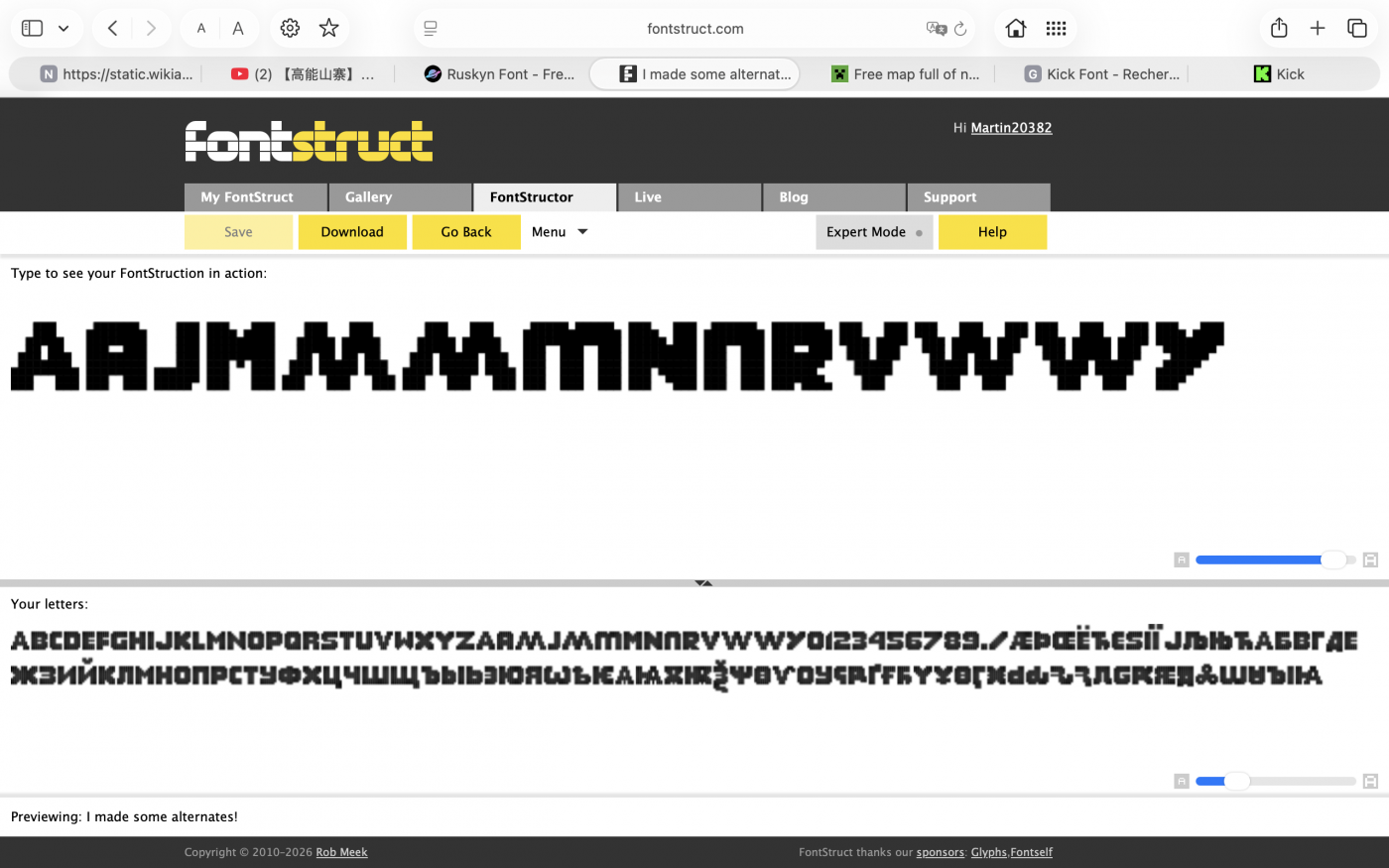
• the unofficial logo font of kick. as in the streaming platform. UPDATE JUNE 30 2023: added numbers
UPDATE JULY 31 2023: Added The Glyphs: '.', and '/', Changed 1 and 7's Glyph A Bit.
UPDATE OCTOBER 27 2023: Added Cyrillic, Ae, Oe and Thorn
UPDATE NOVEMBER 18 2023: Added the true double u.
UPDATE 2023 18 NOVEMER: Added More Cyrillic
How about adding alternates with this reference picture?